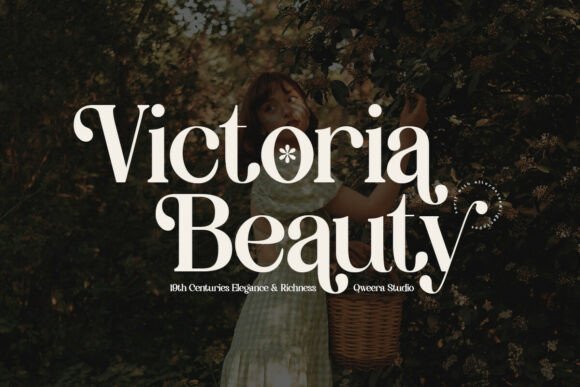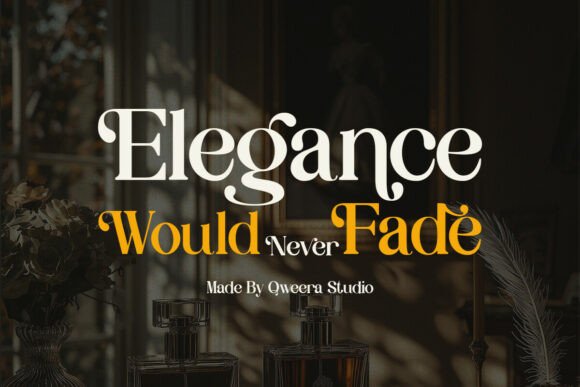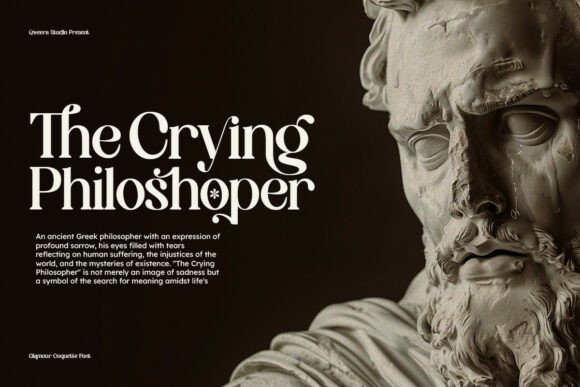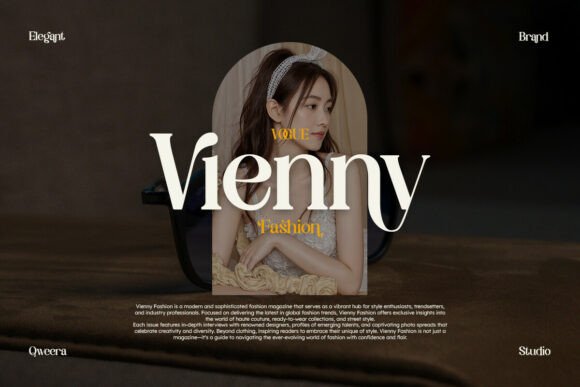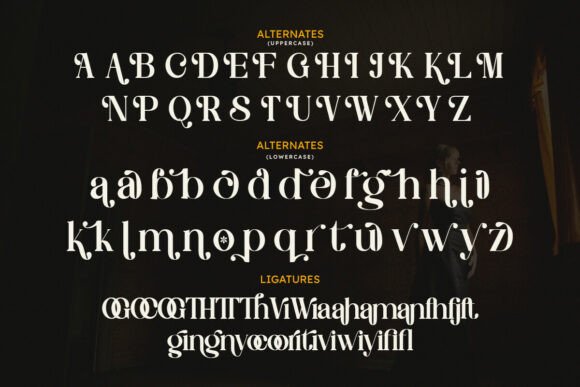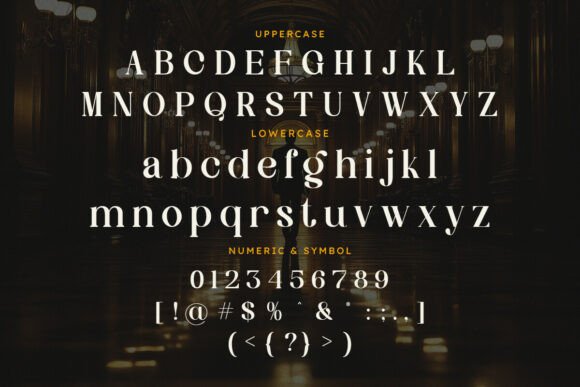
Introducing Glamour Coquette: The Epitome of Elegance in Typography
In the realm of typography, few fonts manage to capture the essence of classic elegance while still offering a modern twist. Glamour Coquette, a sophisticated vintage serif font, stands out as a beacon of refinement, blending timeless charm with contemporary sophistication. Designed with meticulous attention to detail, including alternates and ligatures, Glamour Coquette offers designers an unparalleled level of flexibility for crafting high-end branding, editorial layouts, and luxurious print designs.
Aesthetic Appeal and Versatility
Glamour Coquette’s design is a masterclass in balancing ornateness with readability. Its serif structure exudes a sense of tradition and reliability, while its elegant lines and curves add a touch of modern sophistication. This font is not just a typeface; it’s an experience. It transports readers to a bygone era of glamour and luxury, making it the perfect choice for projects that demand a high level of aesthetic appeal and class.
Whether you’re working on posters, magazines, logos, or invitations, Glamour Coquette has the versatility to elevate your visuals. Its ornate yet readable style makes it an ideal choice for designers seeking a font that embodies elegance, versatility, and premium aesthetics. With Glamour Coquette, you can create stunning visuals that are not only beautiful but also timeless.
One of the standout features of Glamour Coquette is its comprehensive set of characters, including PUA Encoded Characters. This means that the font is fully accessible without the need for additional design software, making it incredibly user-friendly. The inclusion of alternates and ligatures further enhances its versatility, allowing designers to experiment with different styles and create unique visual narratives.
The benefits of using Glamour Coquette are numerous. For one, it saves designers a significant amount of time and effort in finding and pairing fonts that match its level of elegance and sophistication. Additionally, its PUA encoding ensures that you can use it across various platforms and software without any hassle.
Applications of Glamour Coquette
Glamour Coquette’s applications are vast and varied. It’s perfect for:
- Branding: Create a lasting impression with a logo or brand identity that exudes sophistication and luxury.
- Luxury Packaging: Elevate your product packaging with a touch of elegance and refinement.
- Classic-Themed Designs: Bring a sense of nostalgia and glamour to your designs, whether for editorial projects, posters, or invitations.
Any project that demands a high level of aesthetic appeal and class can benefit from Glamour Coquette’s unique charm. Its ability to convey a sense of luxury and sophistication makes it an invaluable asset for designers looking to create visually stunning and impactful designs.
Why Choose Glamour Coquette?
In a market flooded with countless fonts, Glamour Coquette stands out for its unique blend of classic elegance and modern refinement. Here are a few reasons why it should be your go-to font for luxury and high-end projects:
- Elegance: Its sophisticated design ensures that your projects stand out with a touch of class and luxury.
- Versatility: With its comprehensive set of characters, alternates, and ligatures, Glamour Coquette offers endless possibilities for creative expression.
- Premium Aesthetics: Achieve a premium look without compromising on readability or style.
Glamour Coquette is more than just a font; it’s a design statement. It speaks to a sense of style that is both refined and impactful. By choosing Glamour Coquette, you’re not just selecting a typeface; you’re embracing a design philosophy that values beauty, elegance, and sophistication.
| Author | Qweera Studio |
Glamour Coquette is a game-changer in the world of typography. Its sophisticated, elegant vintage serif design, coupled with modern flexibility, makes it an indispensable tool for designers aiming to create high-end visuals. Whether you’re working on branding, luxury packaging, or classic-themed designs, Glamour Coquette offers the perfect blend of aesthetic appeal and readability.
With its PUA Encoded Characters, alternates, and ligatures, Glamour Coquette is poised to become your favorite font for projects that demand the very best. Experience the elegance and versatility of Glamour Coquette and elevate your designs to new heights of sophistication and beauty.